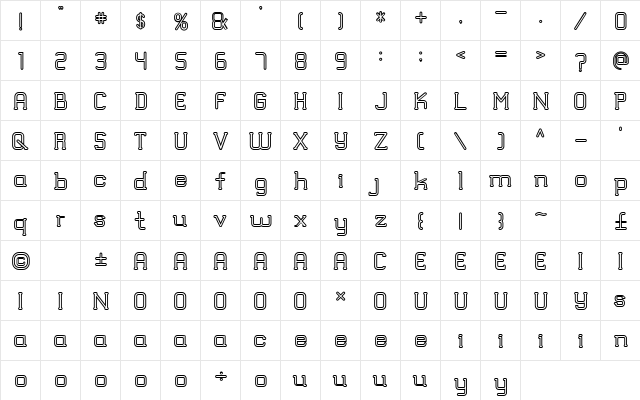
TRUMANS Outline
| Style | Outline |
| Foundry | Edric Studio |
| Designer | Deyan |
Design Context for TRUMANS Typeface
TRUMANS brings ornamental detail and strong personality to headlines and identities, where visual impact matters more than quiet functionality.
Font Pairing: Pair with a clean neutral sans-serif for body copy to let TRUMANS's character lead without overwhelming the composition.
Pro Tip: Treat TRUMANS as the centrepiece of your typographic hierarchy. One strong heading set in a decorative face can carry an entire layout.